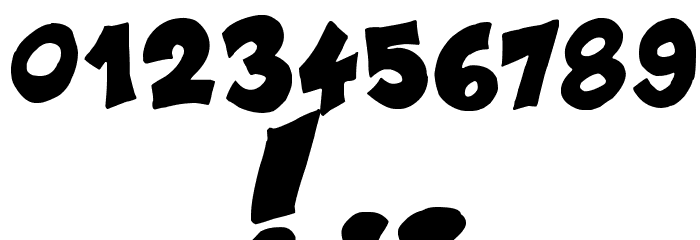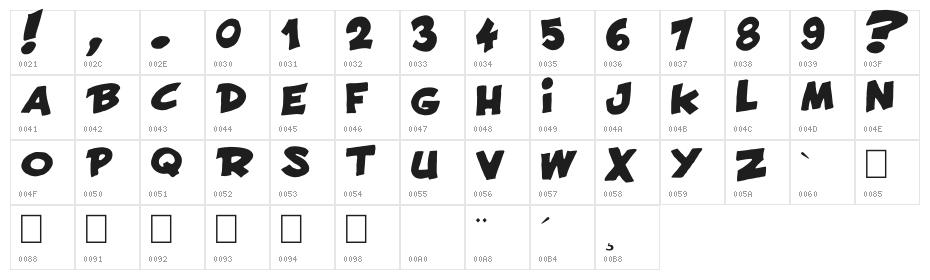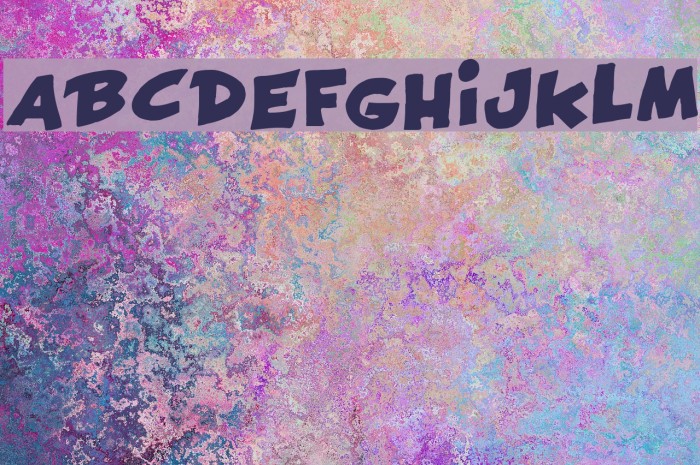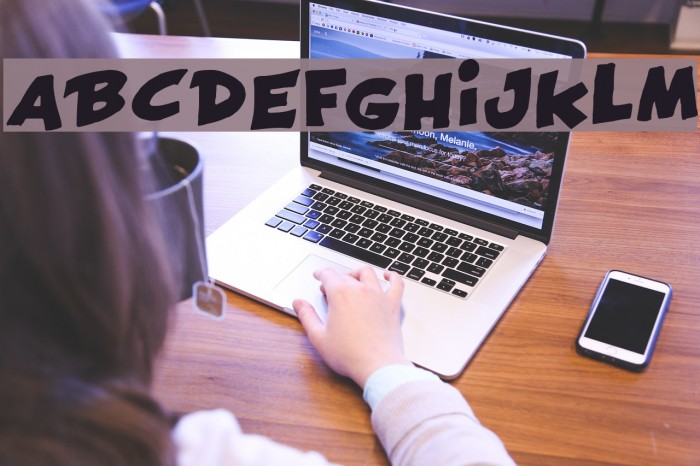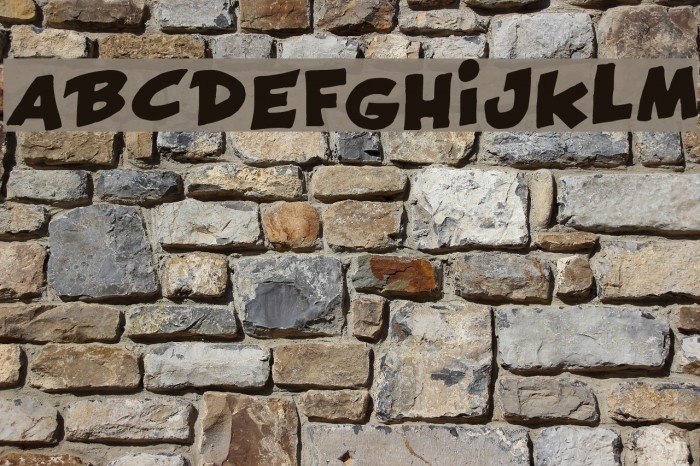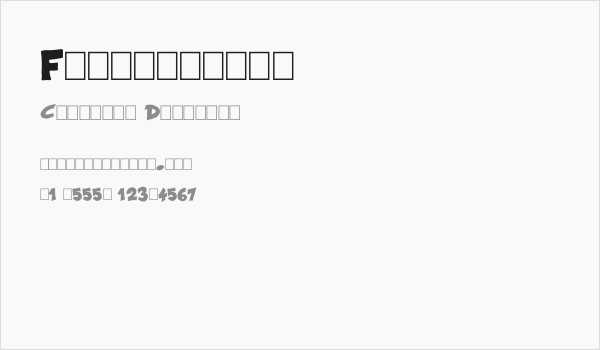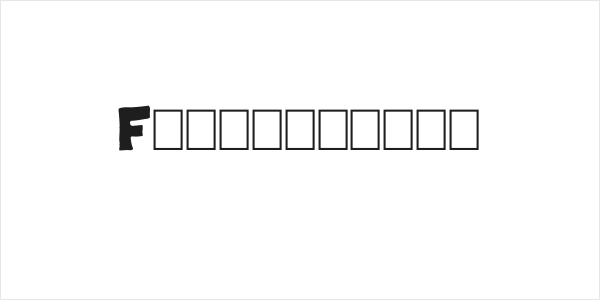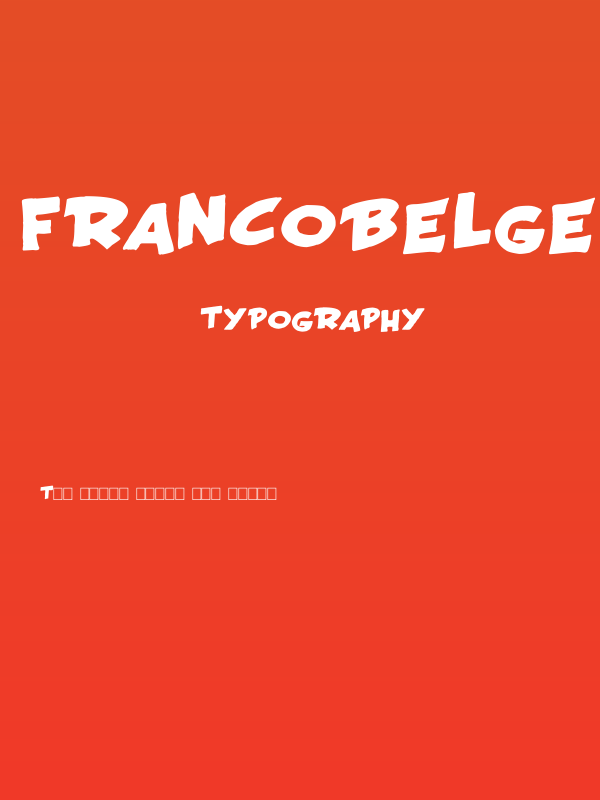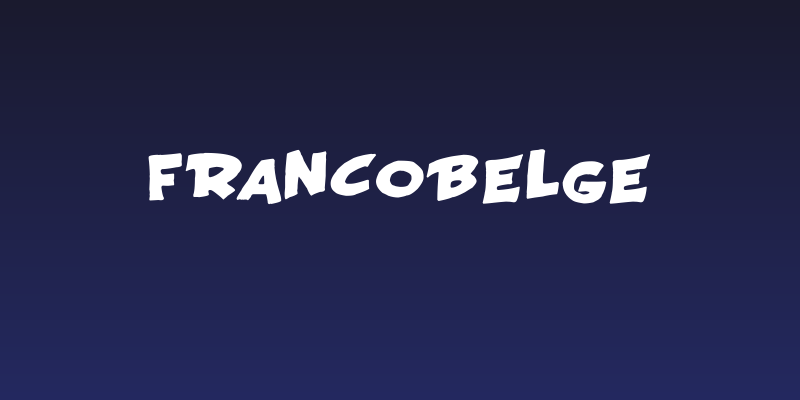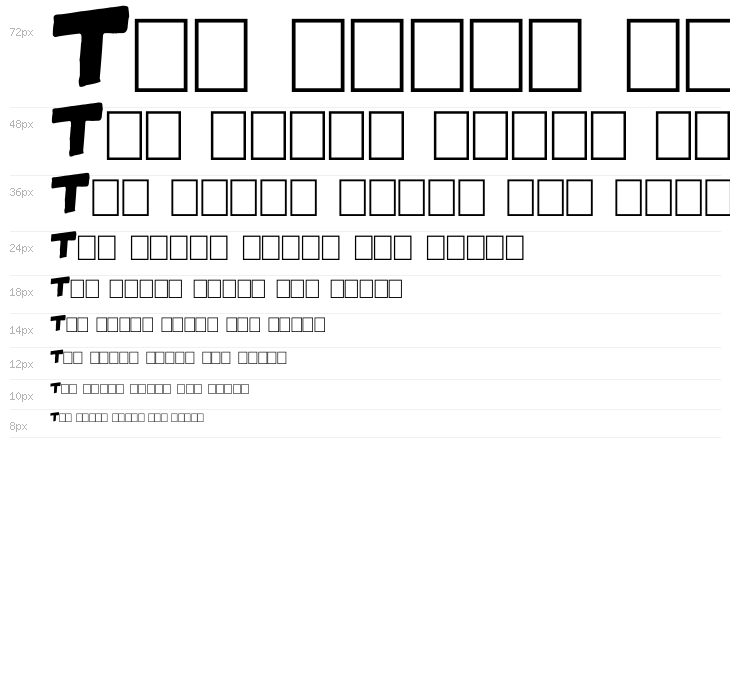
Francobelge Font
Francobelge Description
This font features a bold and dynamic style with a playful and energetic appearance. The letters are thick and slightly irregular, giving them a hand-drawn feel that adds a sense of movement and personality. The uppercase and lowercase characters maintain a consistent weight, contributing to a cohesive look. The numbers and special characters follow the same bold and lively design, making them stand out effectively. This font is ideal for projects that require a fun and engaging visual impact.
| Overall Style | Playful, Energetic |
| Proposed Projects | Ideal for children's books, comic strips, playful branding, and event posters. |